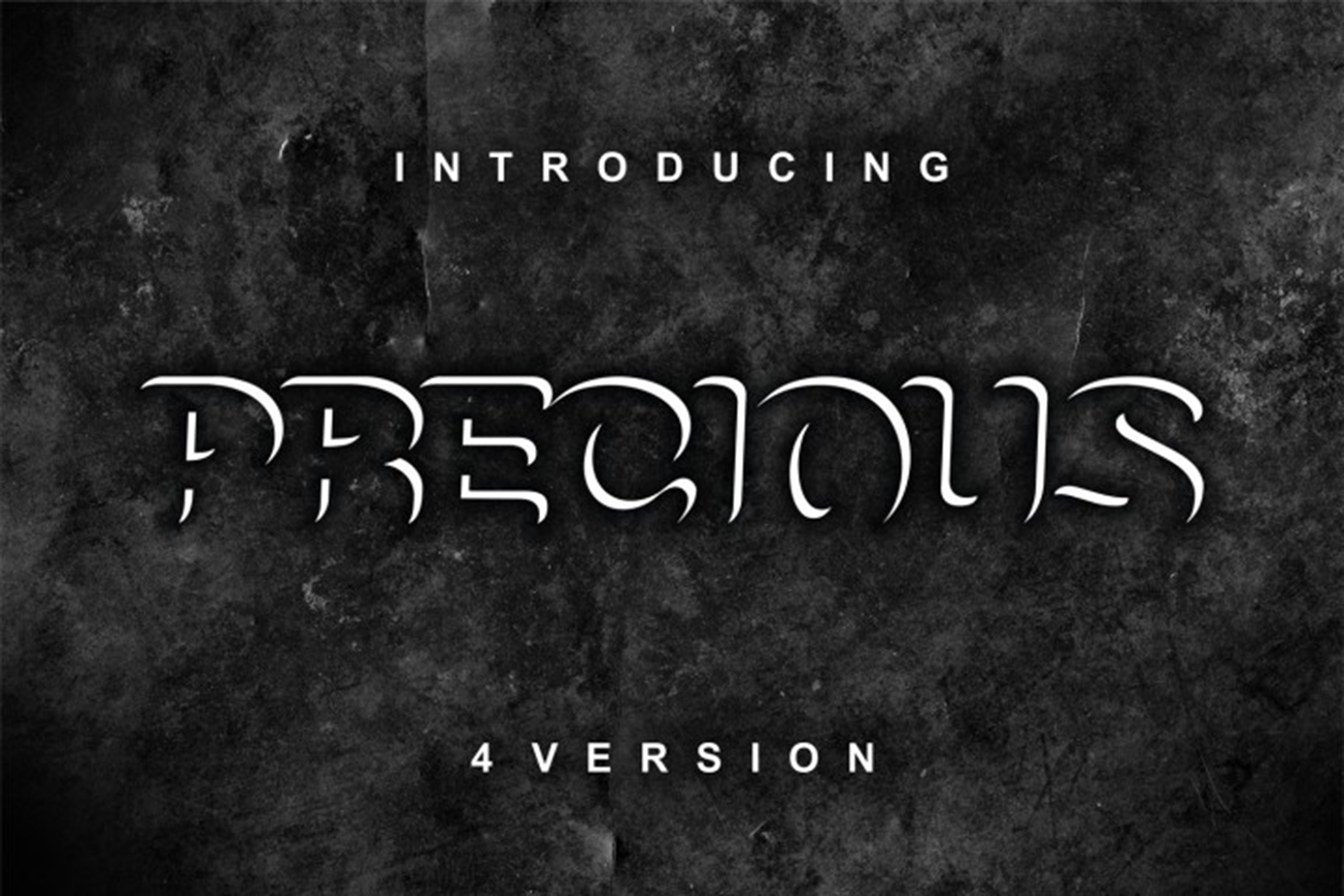
Precious 4 versions of display font
Precious
Clear white mood and fanciful lettering in text is what you need when you want your design to become attractively interesting and best among the others. Do not look for another typeface, the Precious © is the one that you need. Use it anywhere and on any “surface” or background. The fill colour is white, but shadows make the outline of the letter’s shape. This trick make font interesting and attracts customers as it is simply beautiful. Wide range of use could possibly be from party decoration till invitation letter; from business letter till absence notice; from design of heading in book or newspaper till headline in magazine etc (for more additional and possible designs, please refer to short list provided below.
Font Include: • Uppercase letters • Lowercase letters • Basic punctuation • 0-9 numeric characters • Copyright and registered trademark symbols The font is clearly readable from any size from small to big sizes. Short list of possible uses for inspiration: • Book covers or inside chapters section heading • Posters or postcards design • Party decorations and congratulation cards • Invitation letters and business envelopes • Text headings and graphic themes designs • Be creative – suggest any other uses of this vintage stylish designed typography quotes in comments. Let’s see what we’ve forgot…